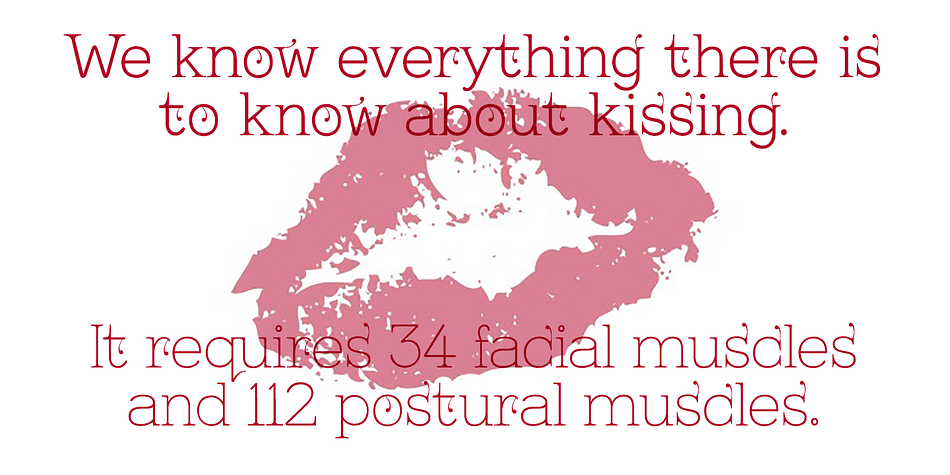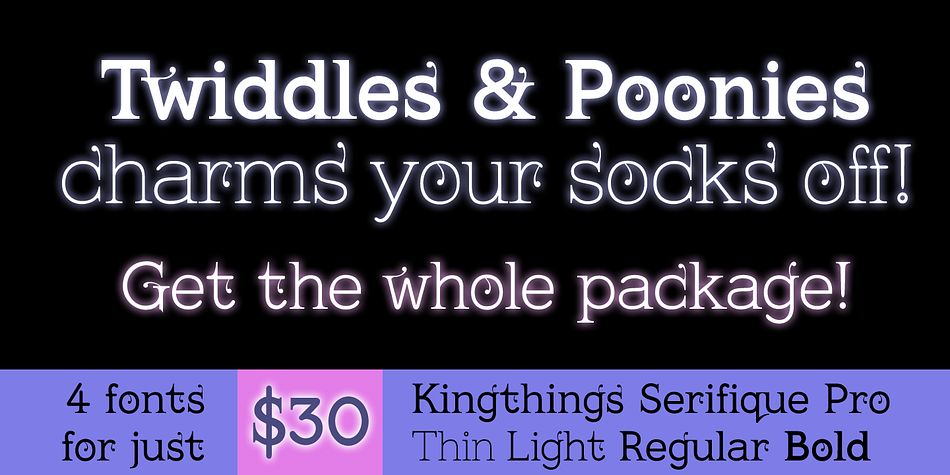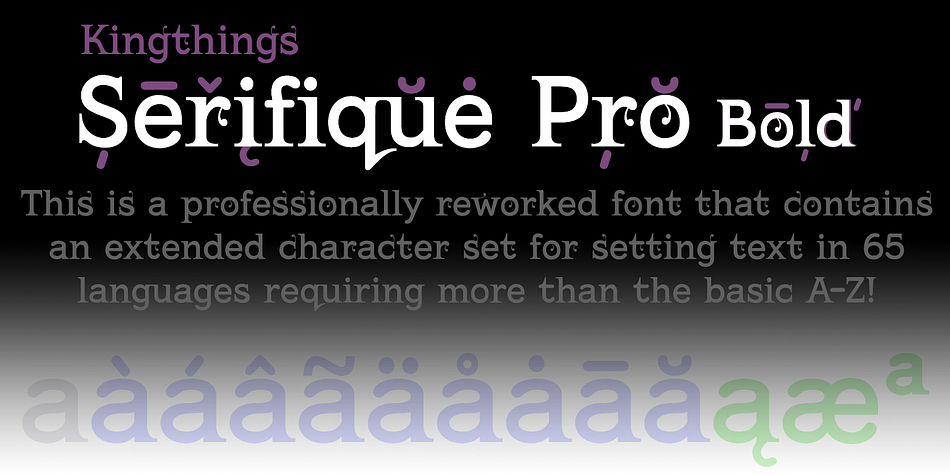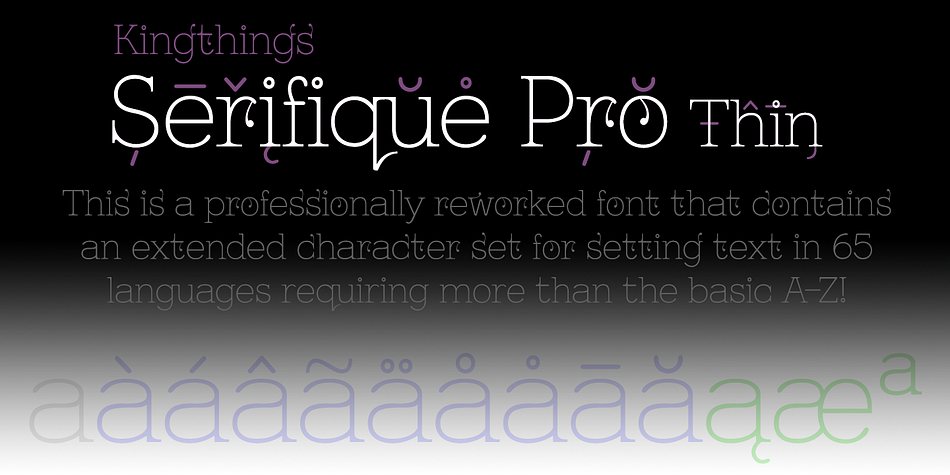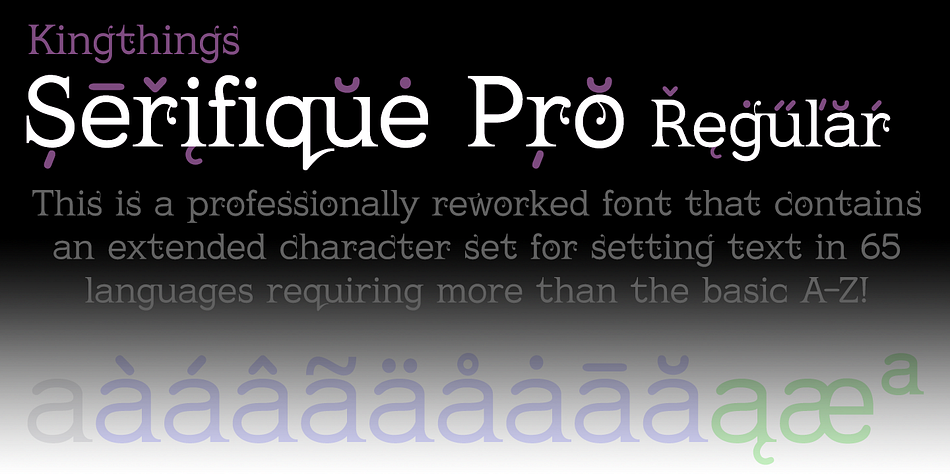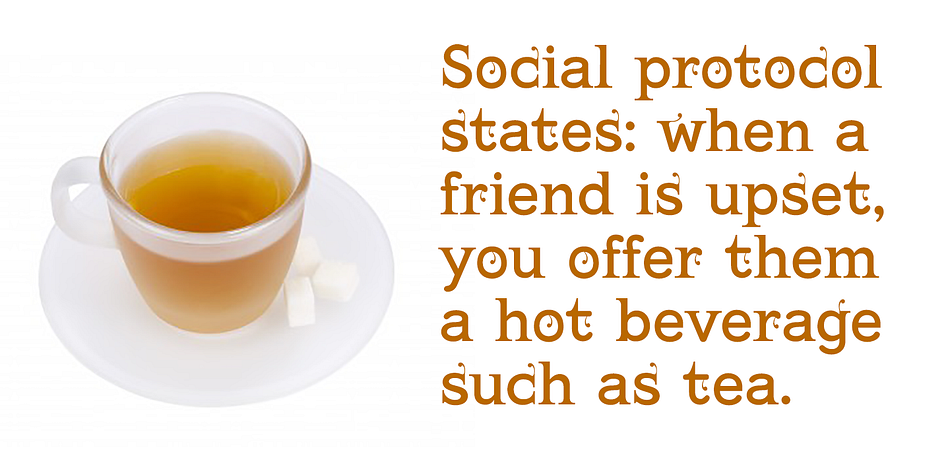
Kingthings Serifique Pro is a display serif font family. This typeface has four styles and was published by CheapProFonts.
This is what you get when you mix monoline rounded letters with some bracketed serifs and finish it off with a sprinkle of ornamental appendages. The result is very readable, rather original and quite charming.
I have fixed some inconsistencies in serif designs across the weights, cleaned up the serif connections - and added a fourth weight. But I have kept all the wonky curves and slightly differing stroke thicknesses, as they are so integral to the charm.
Kevin King says: “I guess all type designers at some point think ‘Well, I’ll just have a go at a standard text face…’ There is a long story here somewhere, suffice it to say that I started with the thinnest version - typical. I wanted to make a standard serif text face - until I saw it in print and thought “Yuk! it looks like everything else!” - still does really but with twiddles and pooneys…”
If you find the “twiddles & pooneys” too much you can tone them down with the OpenType Stylistic Alternate feature (which will make sure they don’t appear on three consecutive letters) or remove them completely with the OpenType Swash feature.